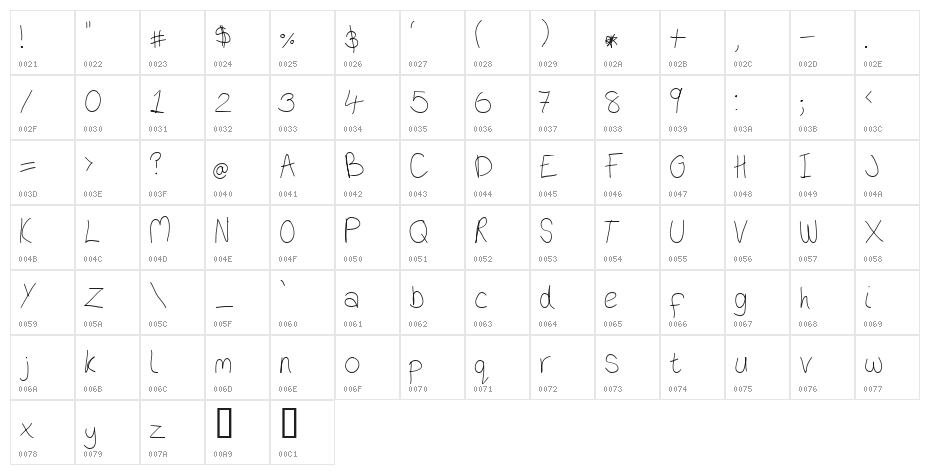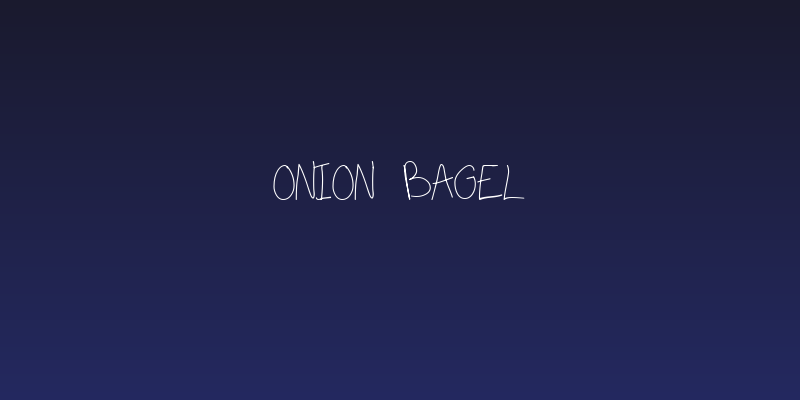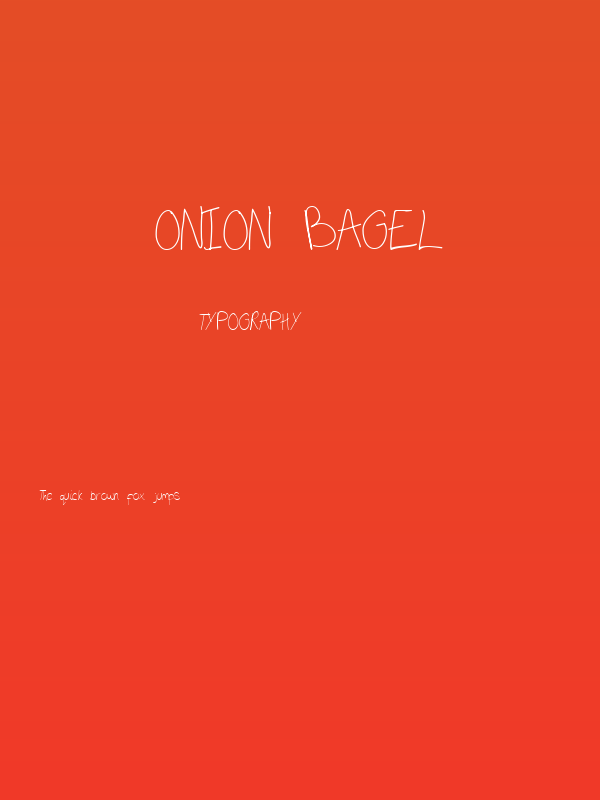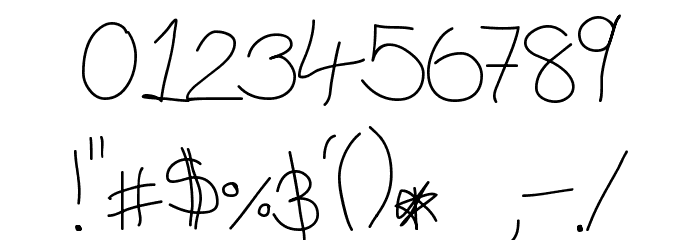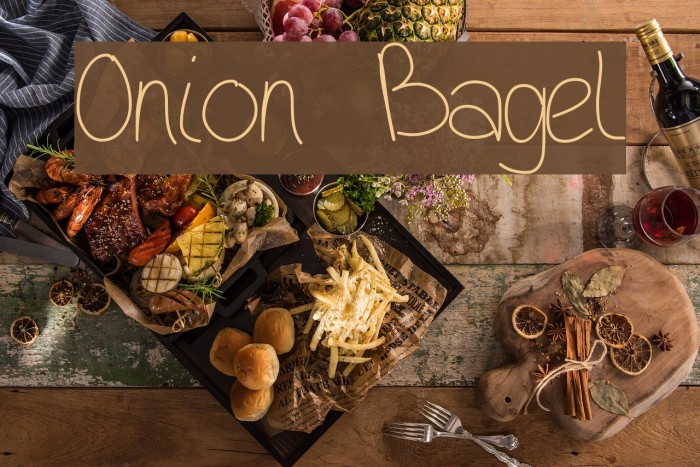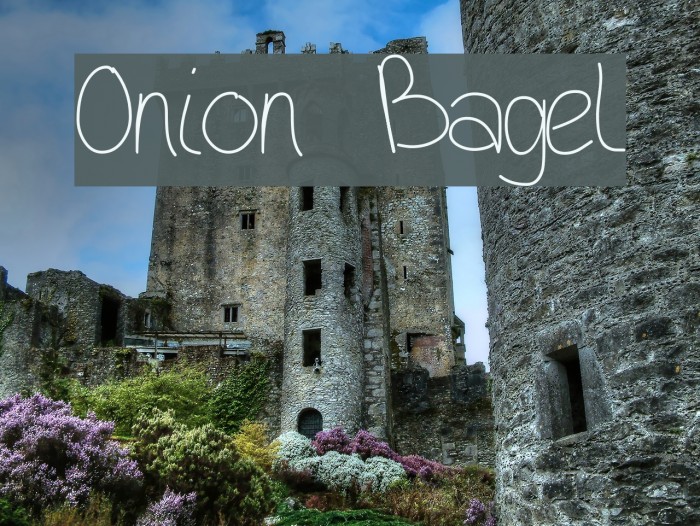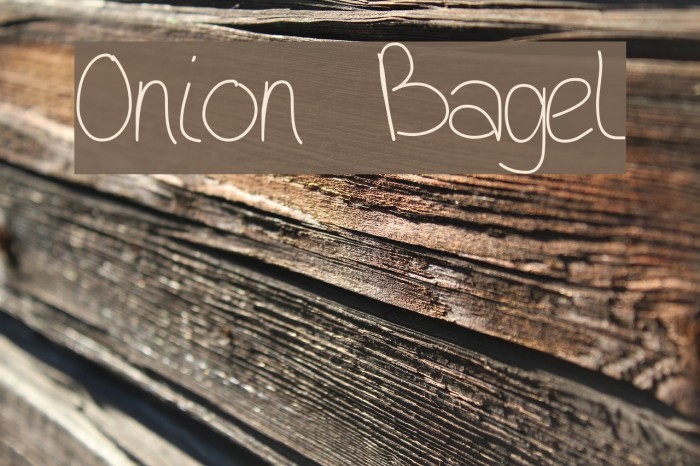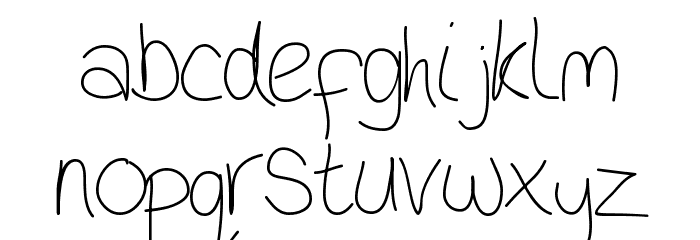
Onion Bagel Font
Onion Bagel Description
This playful and whimsical font features a handwritten style with a casual, relaxed appearance. The characters are slightly irregular, adding a personal touch to the text. The strokes are thin and consistent, giving it a light and airy feel. The uppercase letters are tall and narrow, while the lowercase letters maintain a similar width, creating a harmonious balance. Numbers and special characters follow the same playful theme, making it versatile for various creative projects. The font's unique charm lies in its informal and friendly vibe, perfect for designs that require a touch of personality.
| Overall Style | Casual |
| Use Case | Headlines, Logos, Informal text |
| Proposed Projects | Ideal for greeting cards, children's books, casual invitations, and playful branding. |